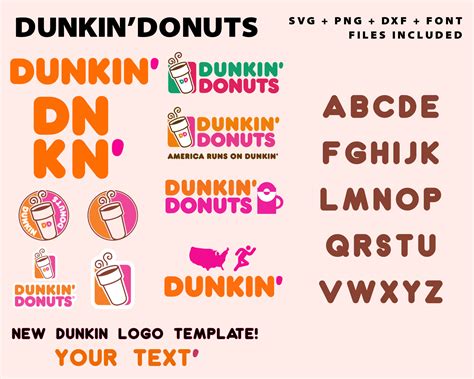
Dunkin’ Donuts logo Fonts In Use
Dunkin Donuts Fonts. Web dunkin is a bold, smooth font based loosely on the popular logo of the “dunkin’ donuts” restaurant franchise.
Web dunkin is a bold, smooth font based loosely on the popular logo of the “dunkin’ donuts” restaurant franchise.
Web dunkin is a bold, smooth font based loosely on the popular logo of the “dunkin’ donuts” restaurant franchise. Web dunkin is a bold, smooth font based loosely on the popular logo of the “dunkin’ donuts” restaurant franchise.